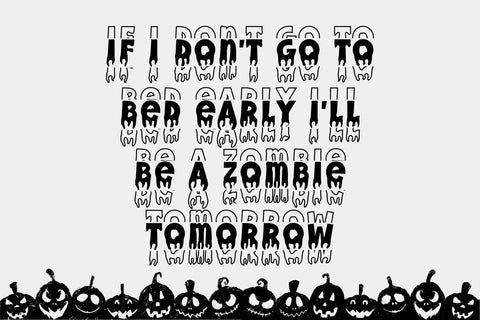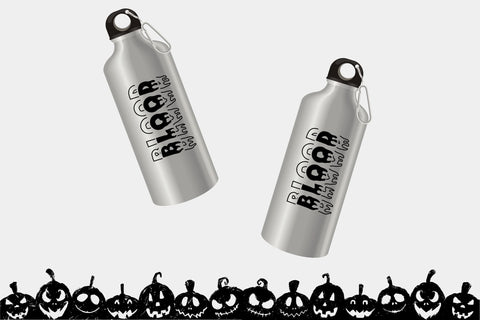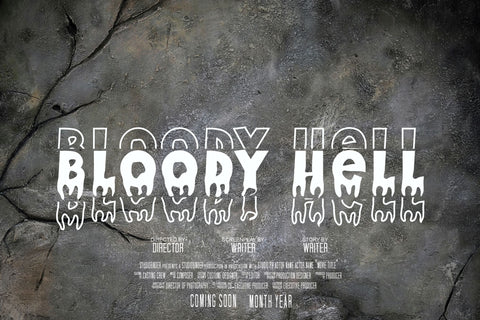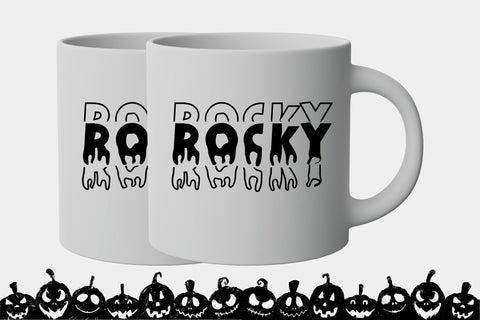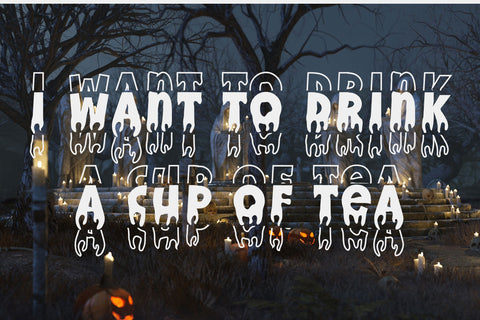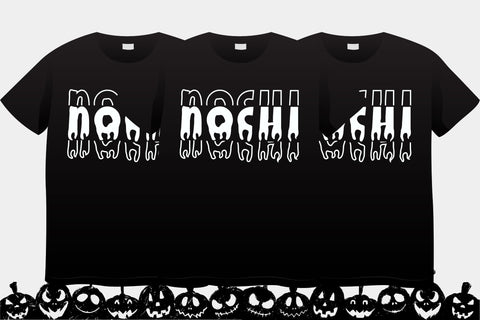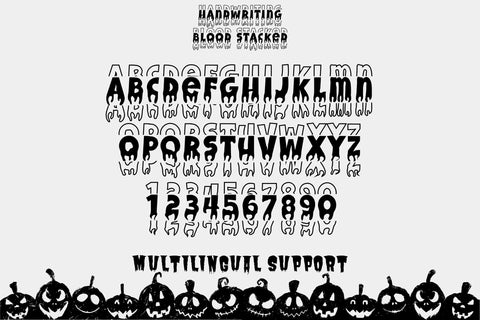
Handwriting Blood Stacked
Handwriting Blood Stacked – Drippy & Terrifying Stacked Horror Font
Handwriting Blood Stacked is a vertically arranged horror font that blends chilling handwritten strokes with dramatic dripping effects. Designed to create an immediate sense of unease, this font is ideal for horror movie titles, Halloween party flyers, spooky apparel, and eerie branding. Its stacked layout gives it a bold, eye-catching structure while maintaining a creepy, blood-soaked aesthetic.
Stacked Horror Design: Bold vertical alignment with dripping, handwritten strokes that evoke a sinister tone.
Ideal for Scary Projects: Perfect for haunted houses, thriller posters, horror branding, and spooky seasonal designs.
Striking & Unique Aesthetic: Combines stacked formatting with grotesque drips and eerie charm.
Full Character Set: Includes uppercase, lowercase, numbers, punctuation, and multilingual support.